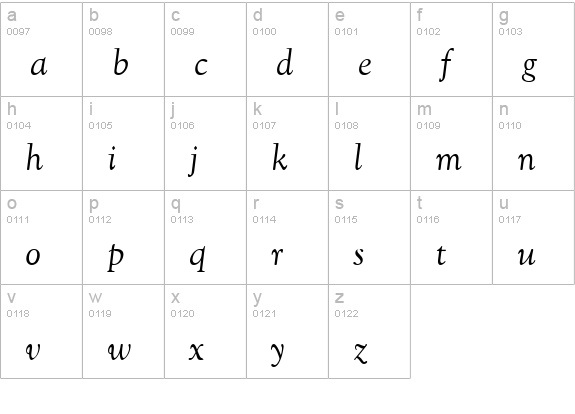
GoudyOldStyT Italic is a distinctive, italic variant in the GoudyOldStyT typeface family \xE2\x80\x94 well suited to design and typography projects.
GoudyOldStyT Italic font exudes elegance and sophistication, perfect for adding a touch of timeless charm to any design project. Its slender, slanted letterforms convey a sense of grace and refinement, making it an ideal choice for invitations, menus, and other formal materials. The delicate curves and subtle serifs of this font create a sense of classic beauty that is sure to captivate viewers. What's more, GoudyOldStyT Italic font is available for free download at FontsMarket.com. Now you can enhance your designs with this exquisite typeface without any cost. Don't miss out on the opportunity to elevate your creative projects with the allure of GoudyOldStyT Italic font. Download it today and let its timeless appeal transform your designs into works of art.